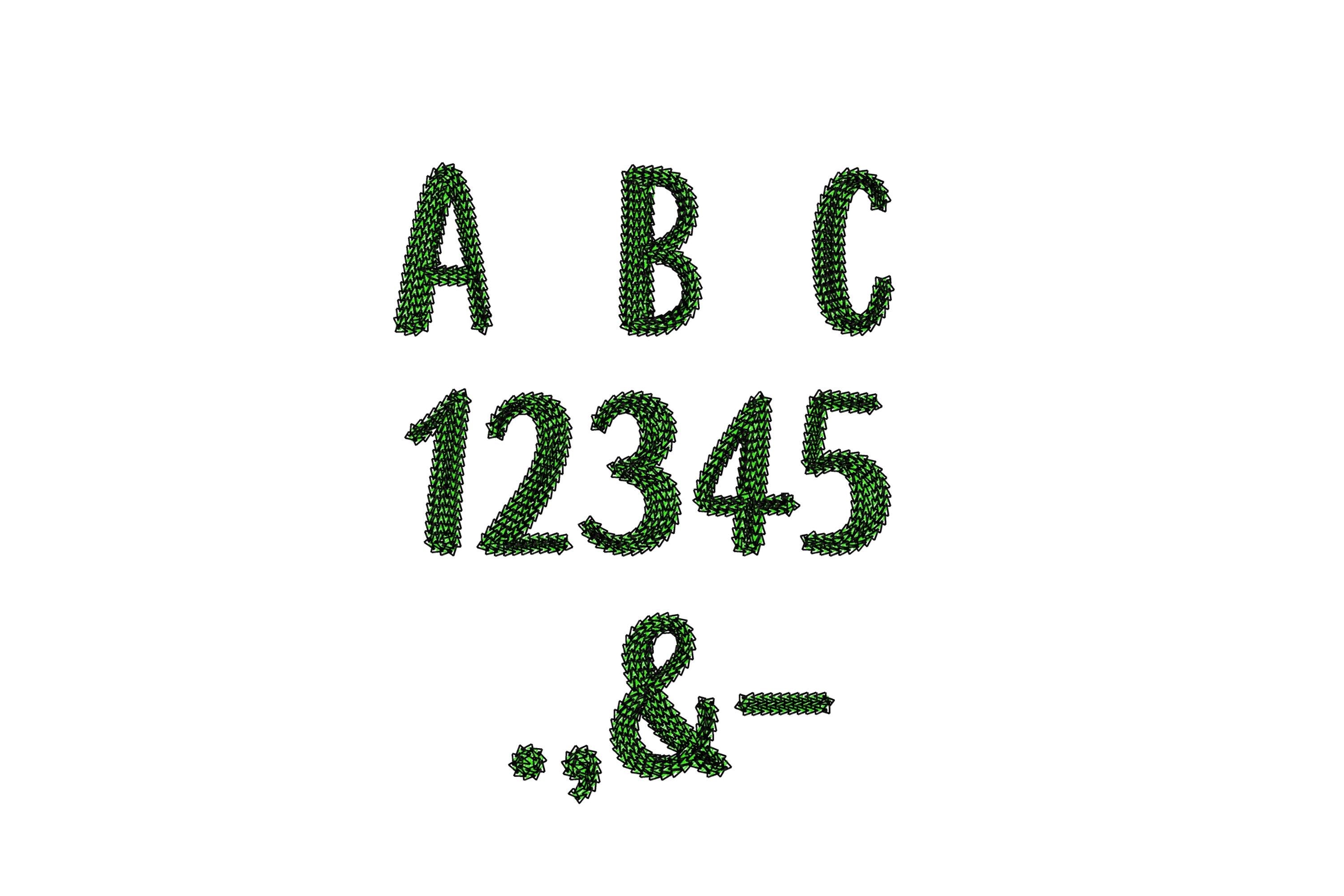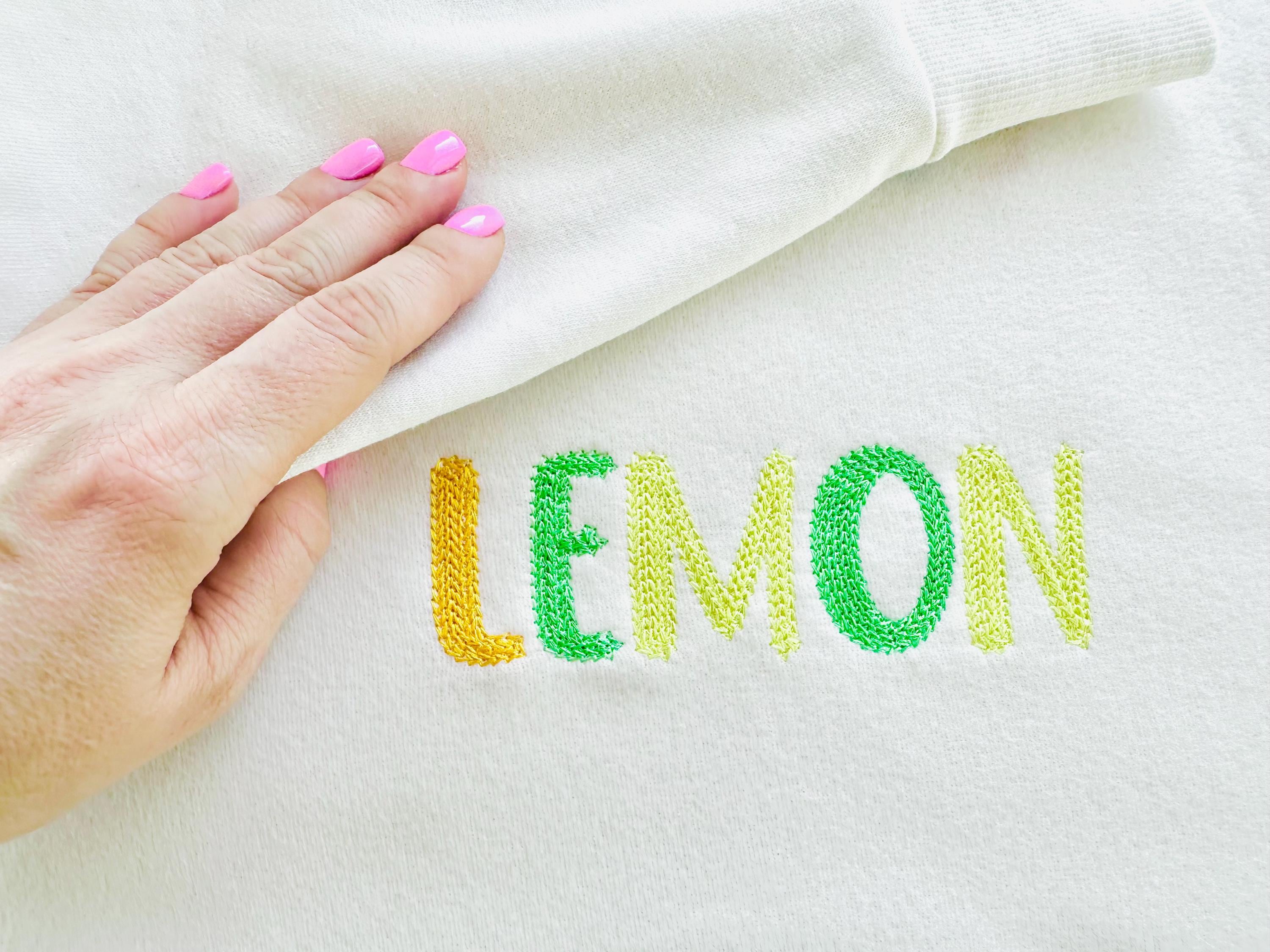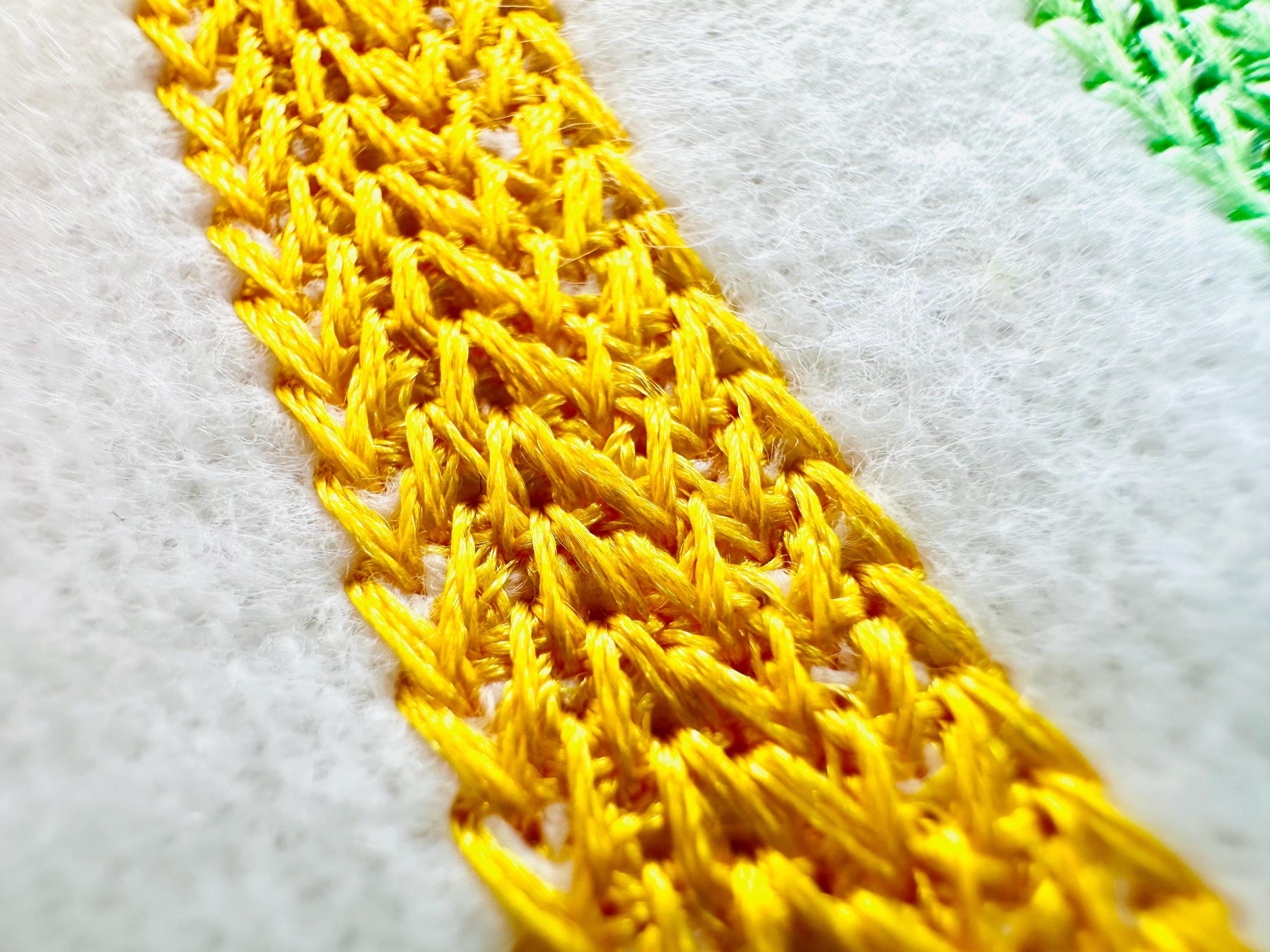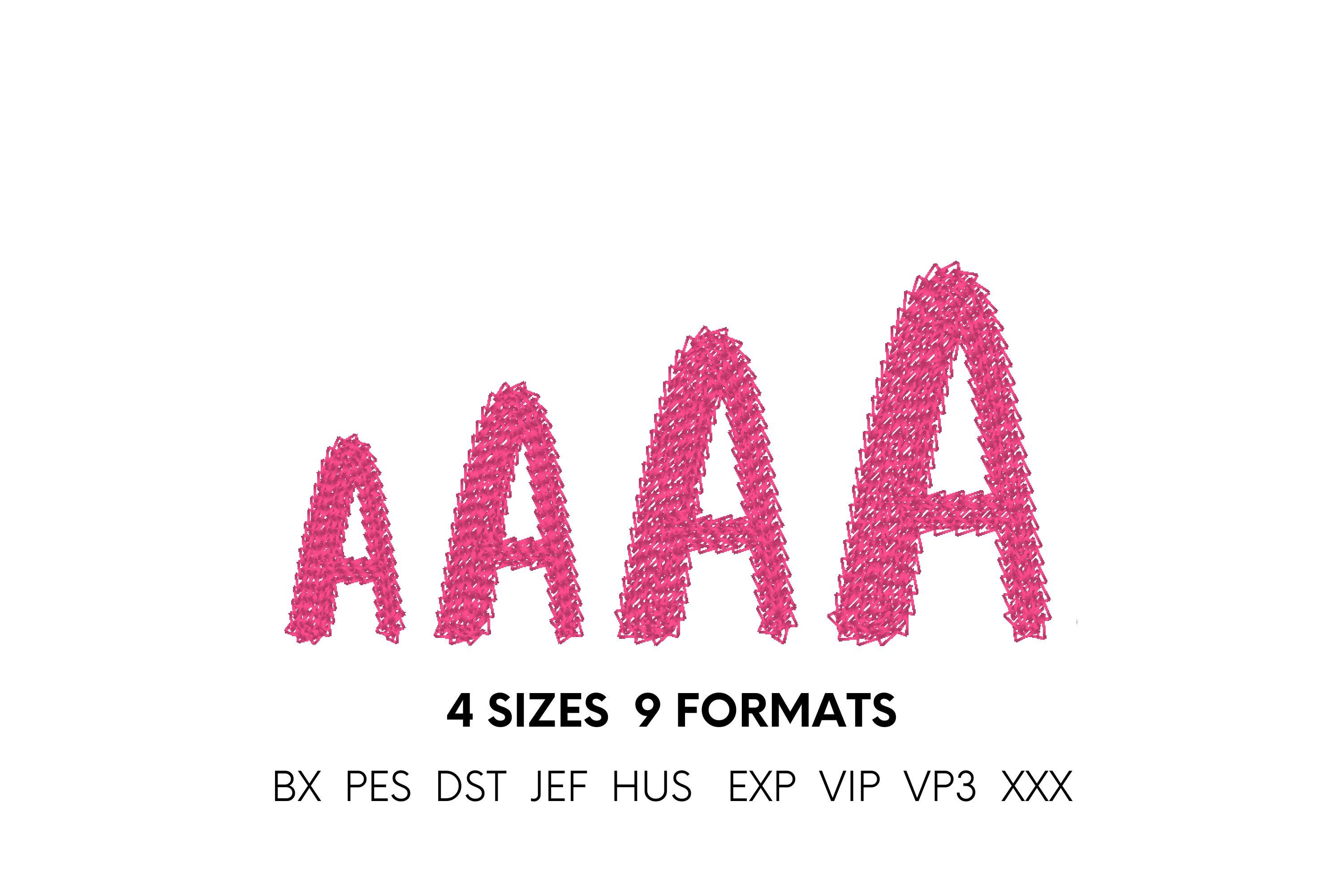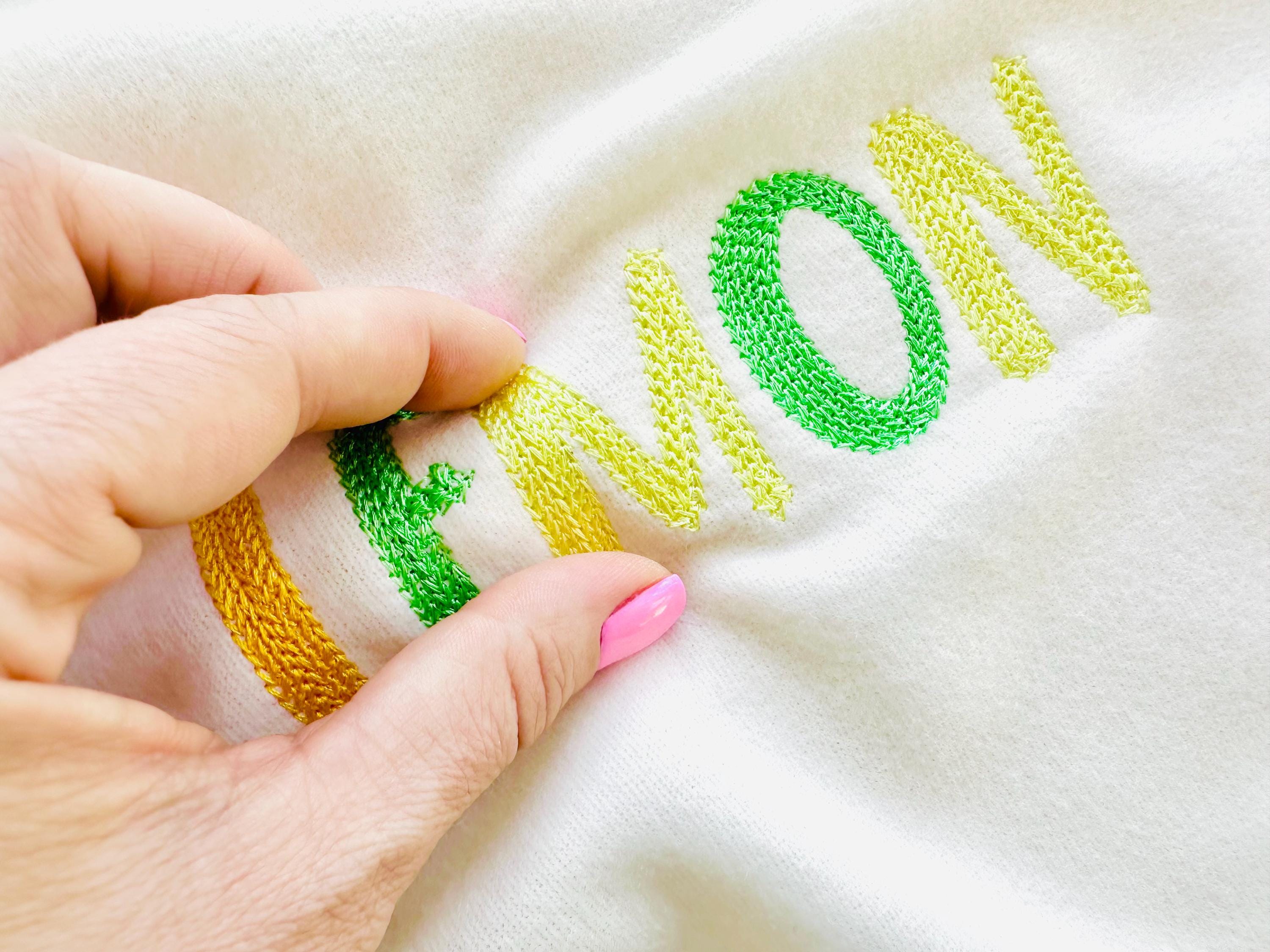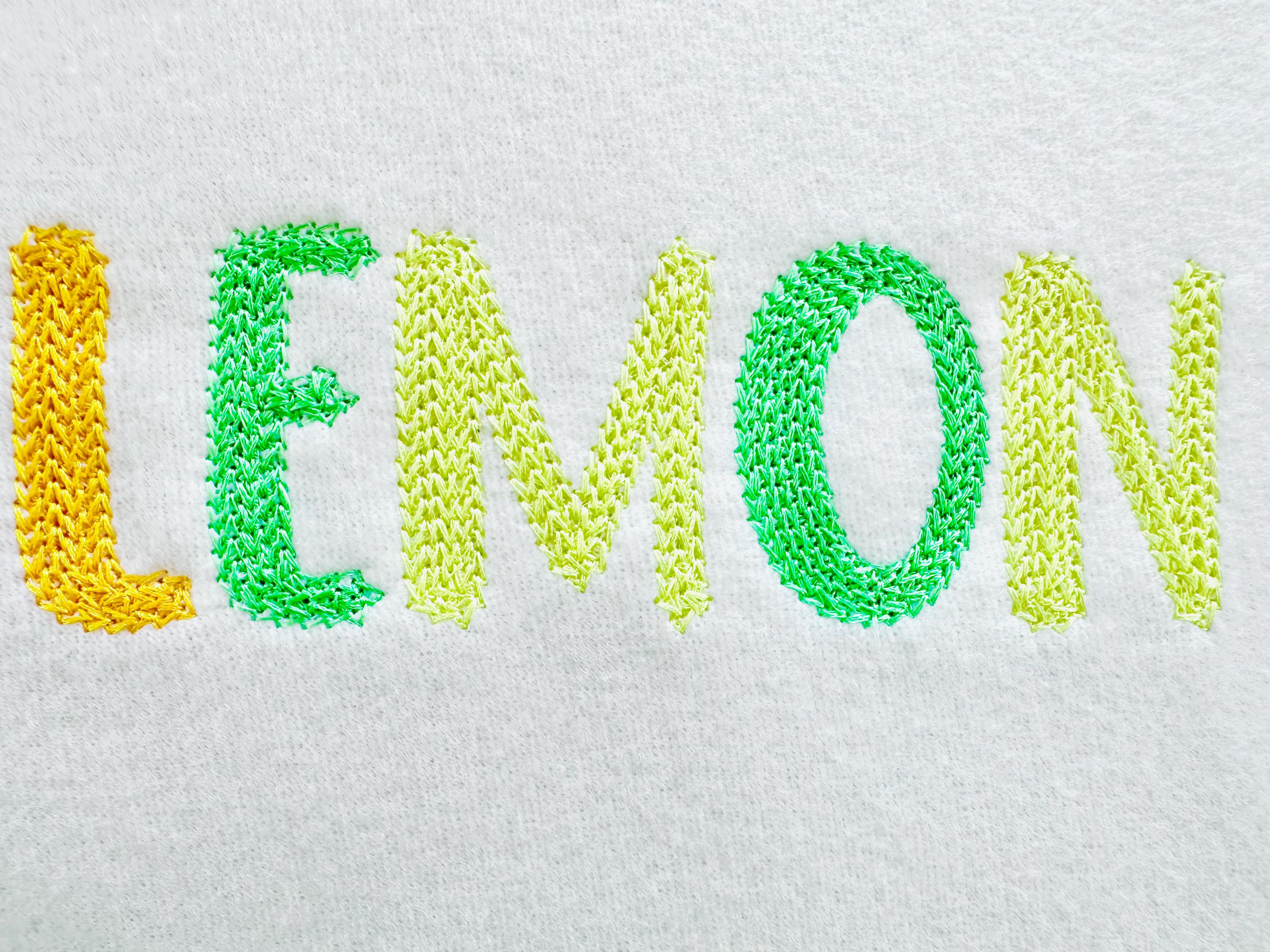
No Puckering Light Chain fill Font effect of hand stitch Font machine embroidery designs alphabet letters monogram 1.4 up to 2.6 inch, BX
The whole alphabet A-Z uppercase, numbers 0-9, and ampersand &
“no puckering”, it usually means:
• The stitch density is well balanced
• The design was tested and doesn’t distort the fabric
• It should stitch cleanly, especially on lighter materials